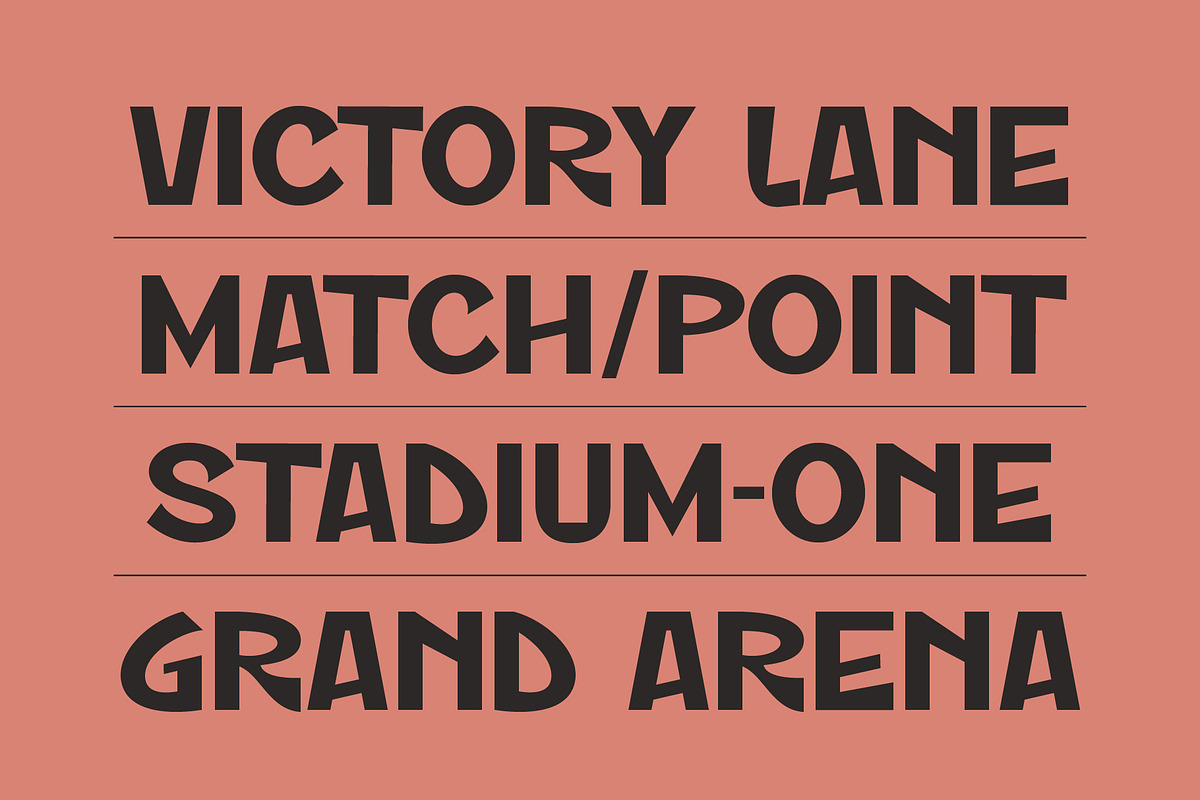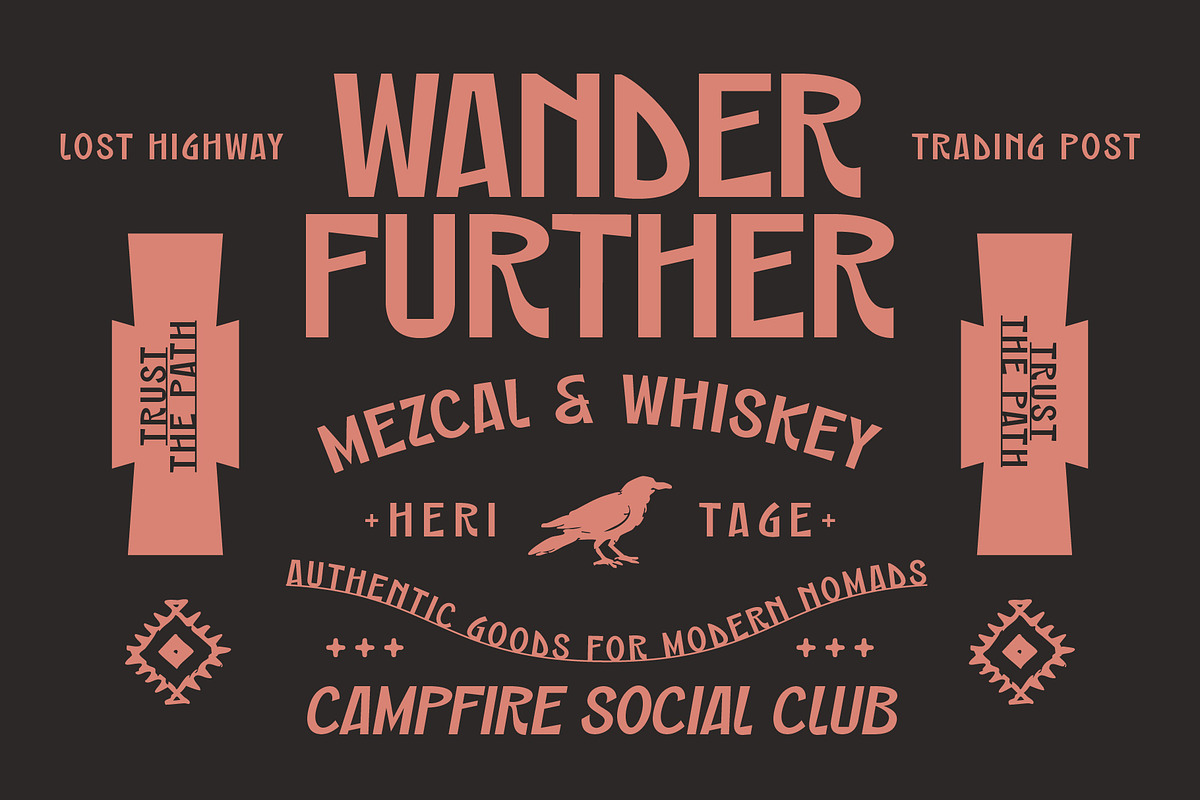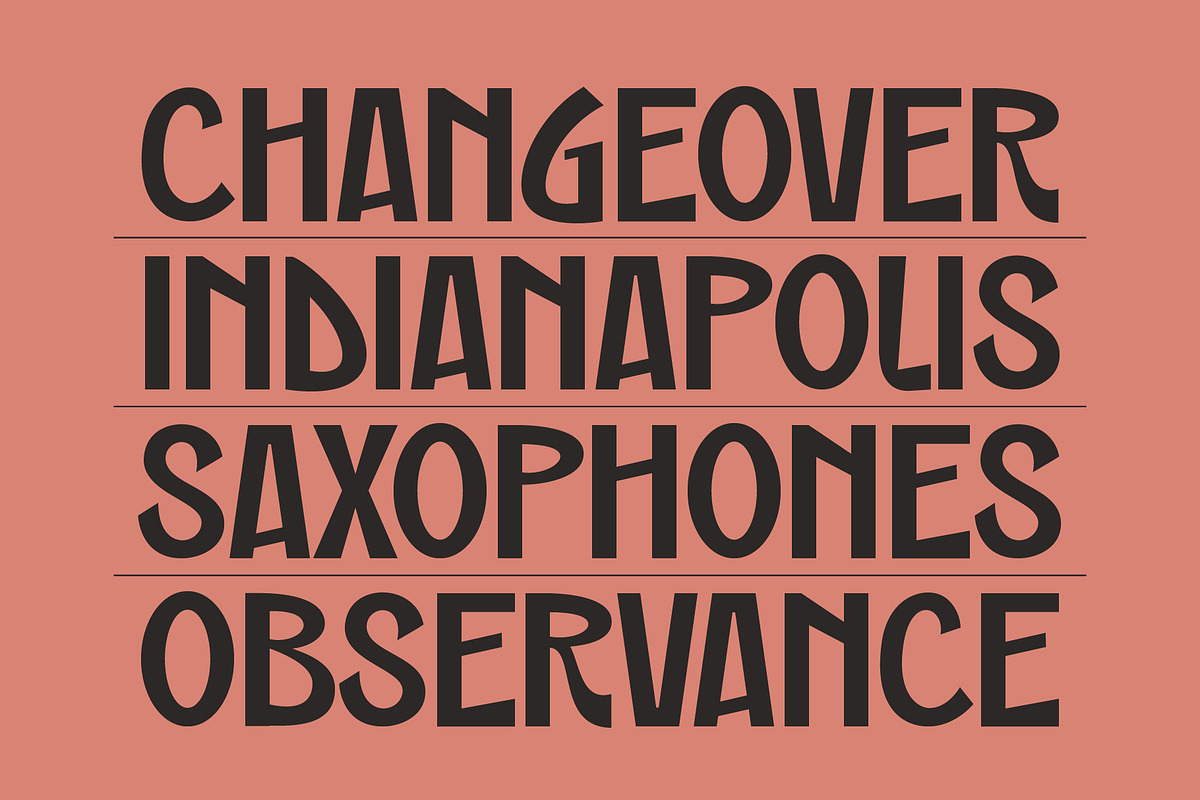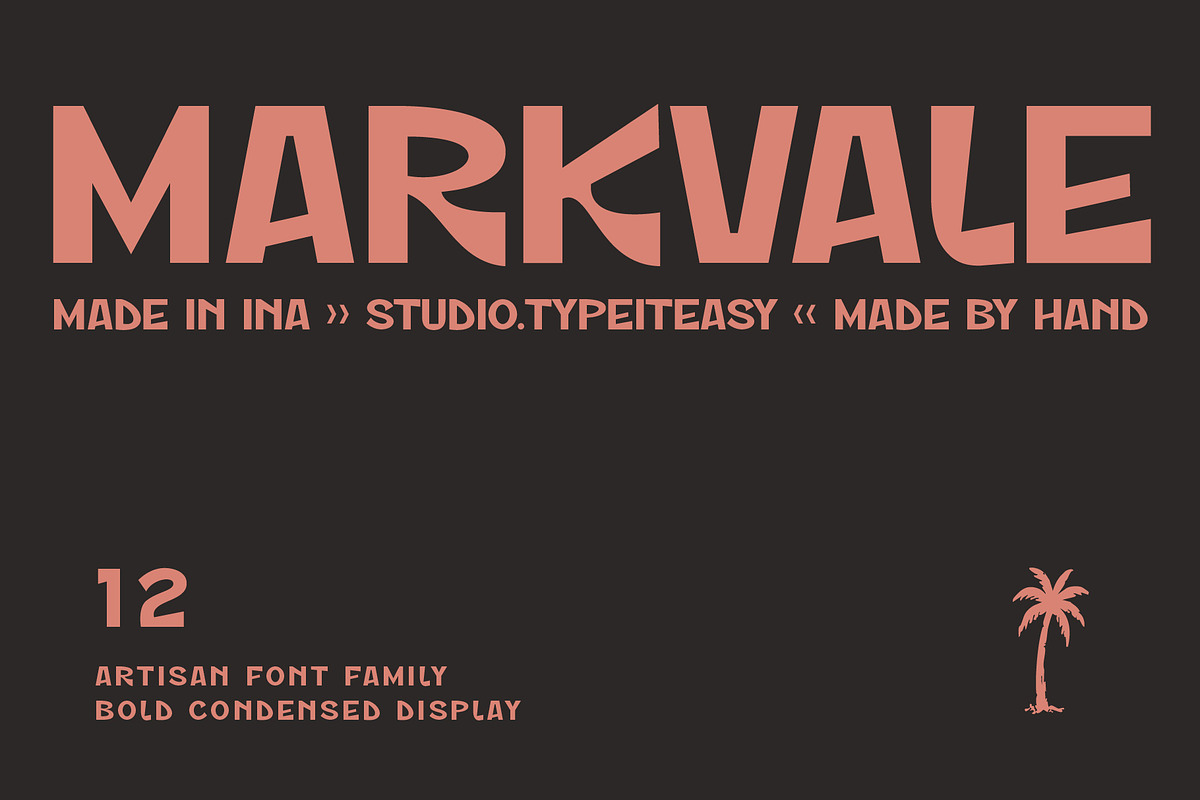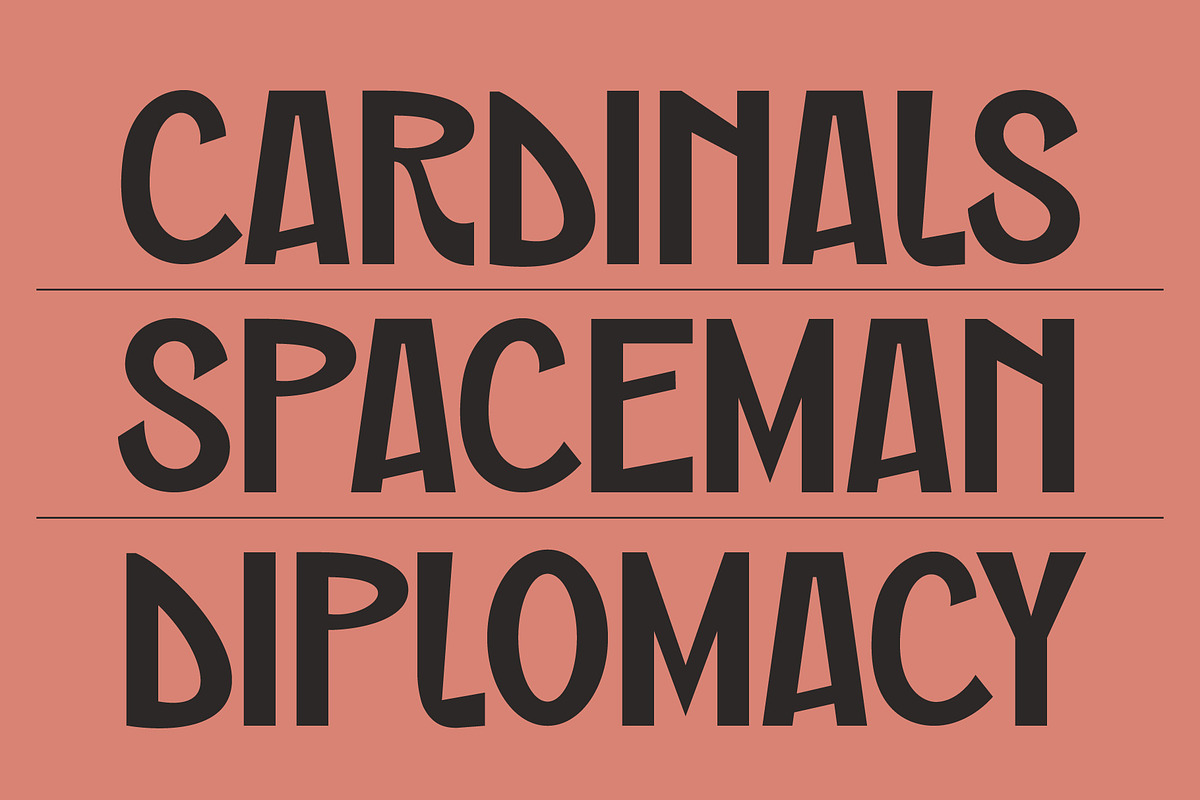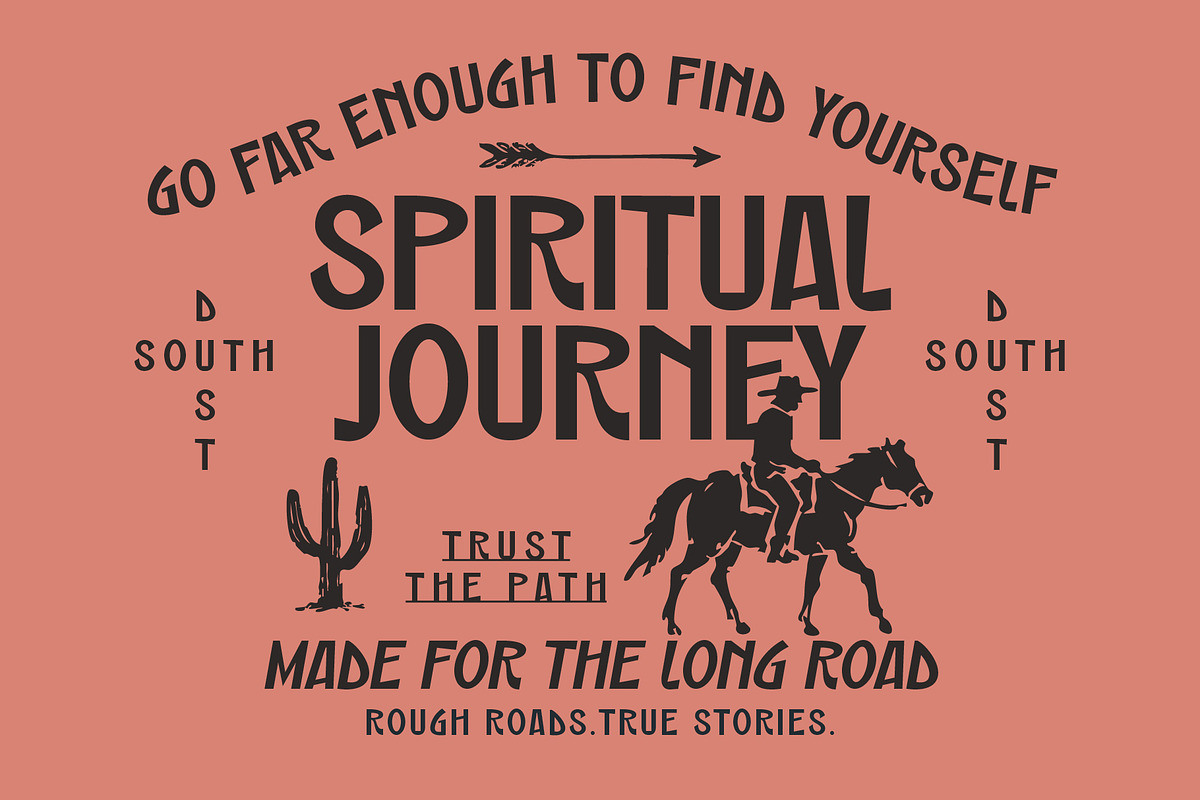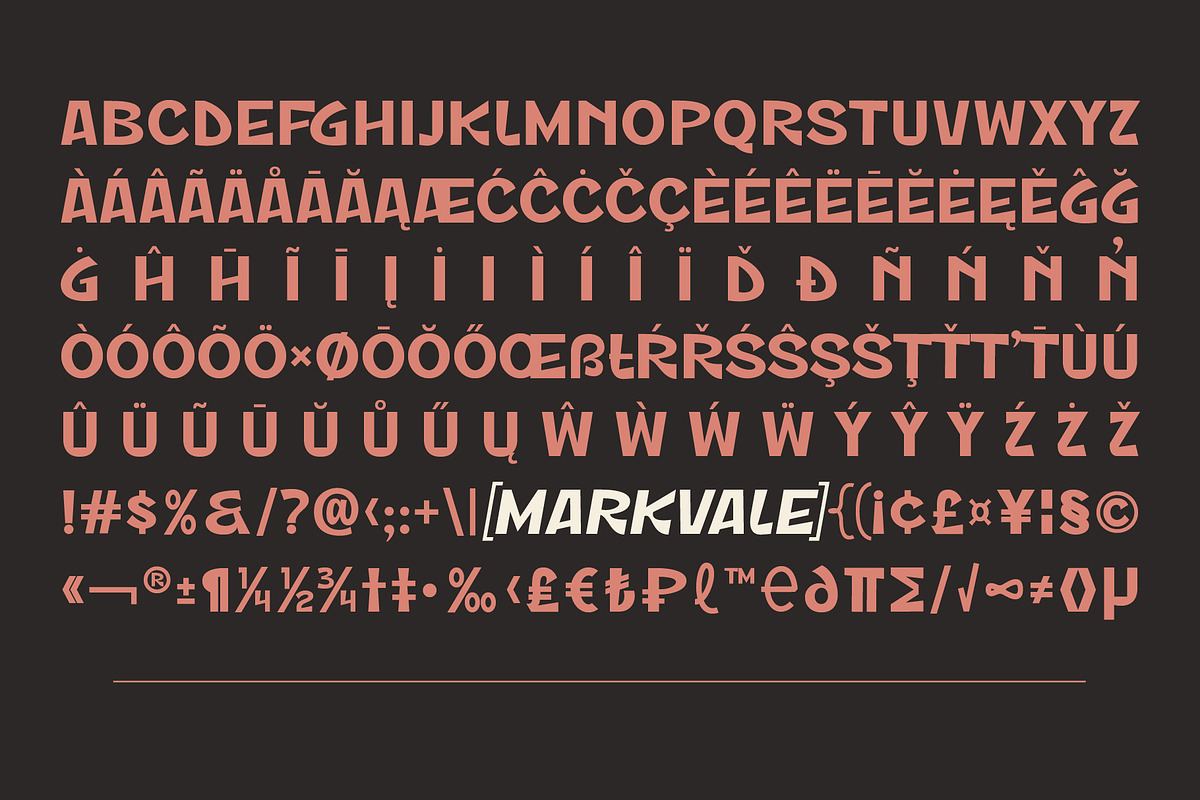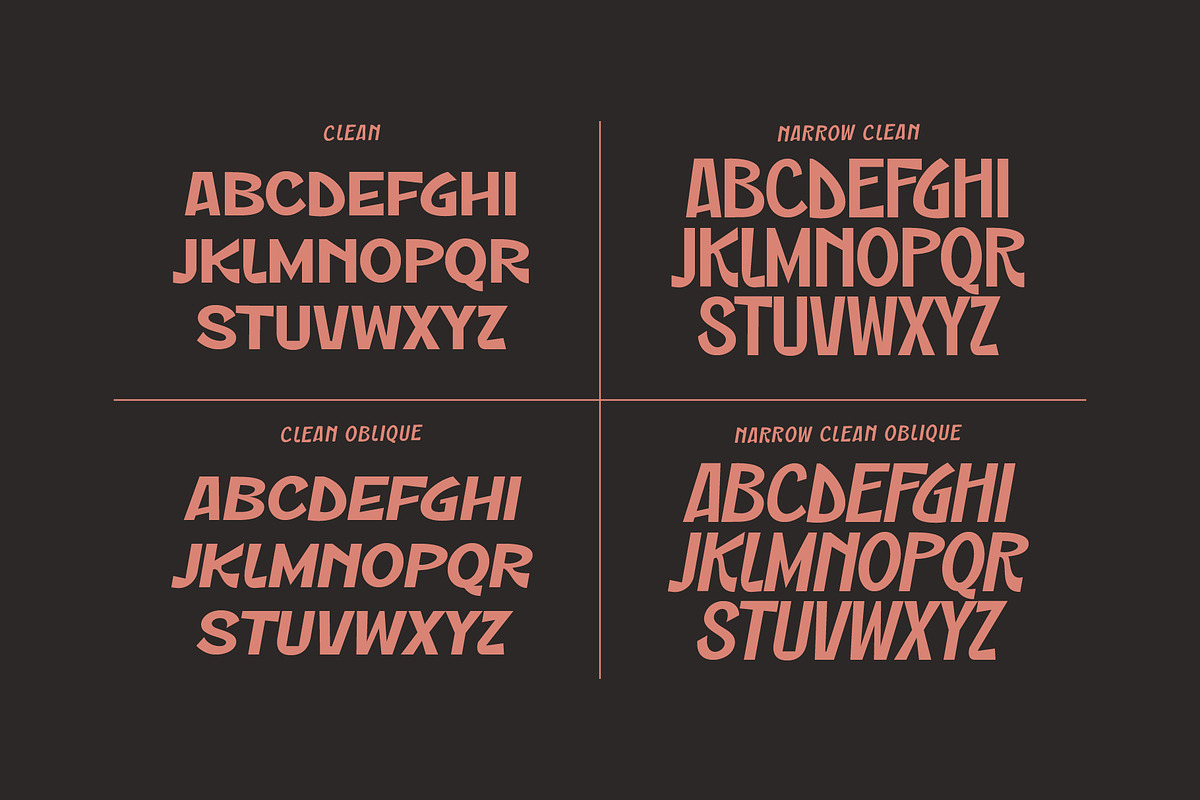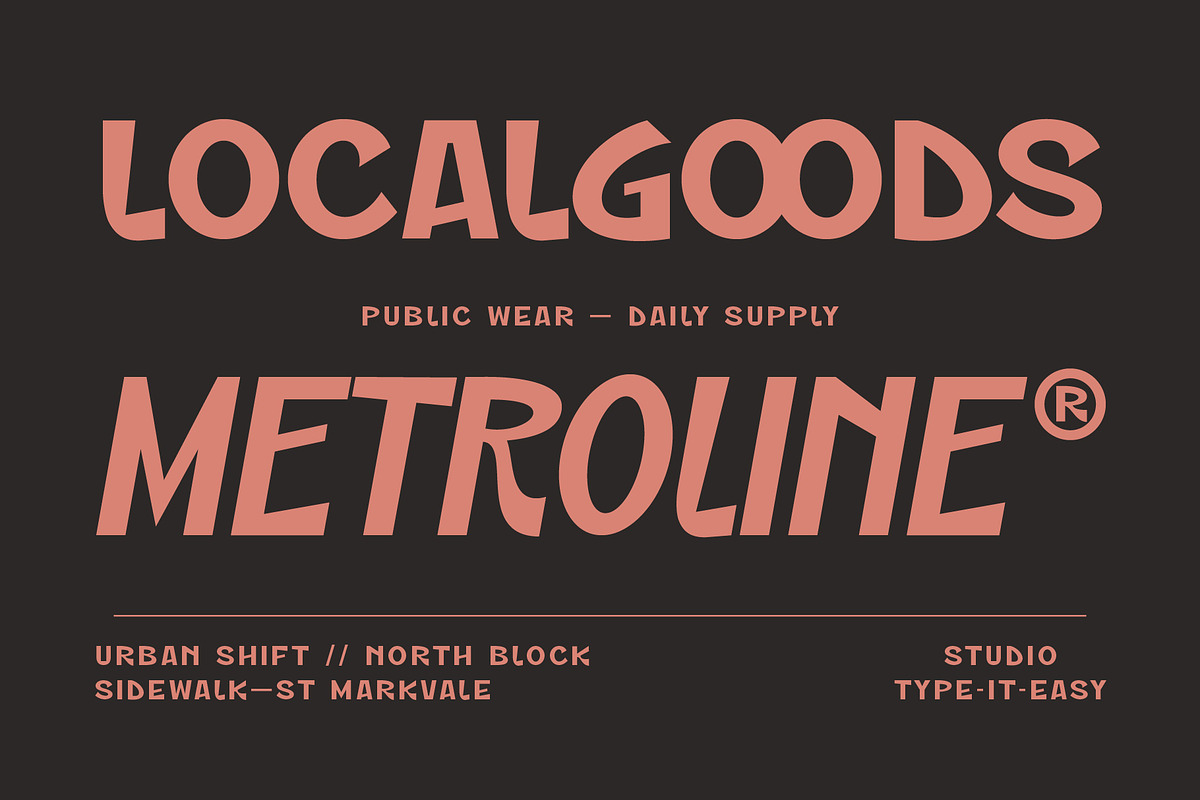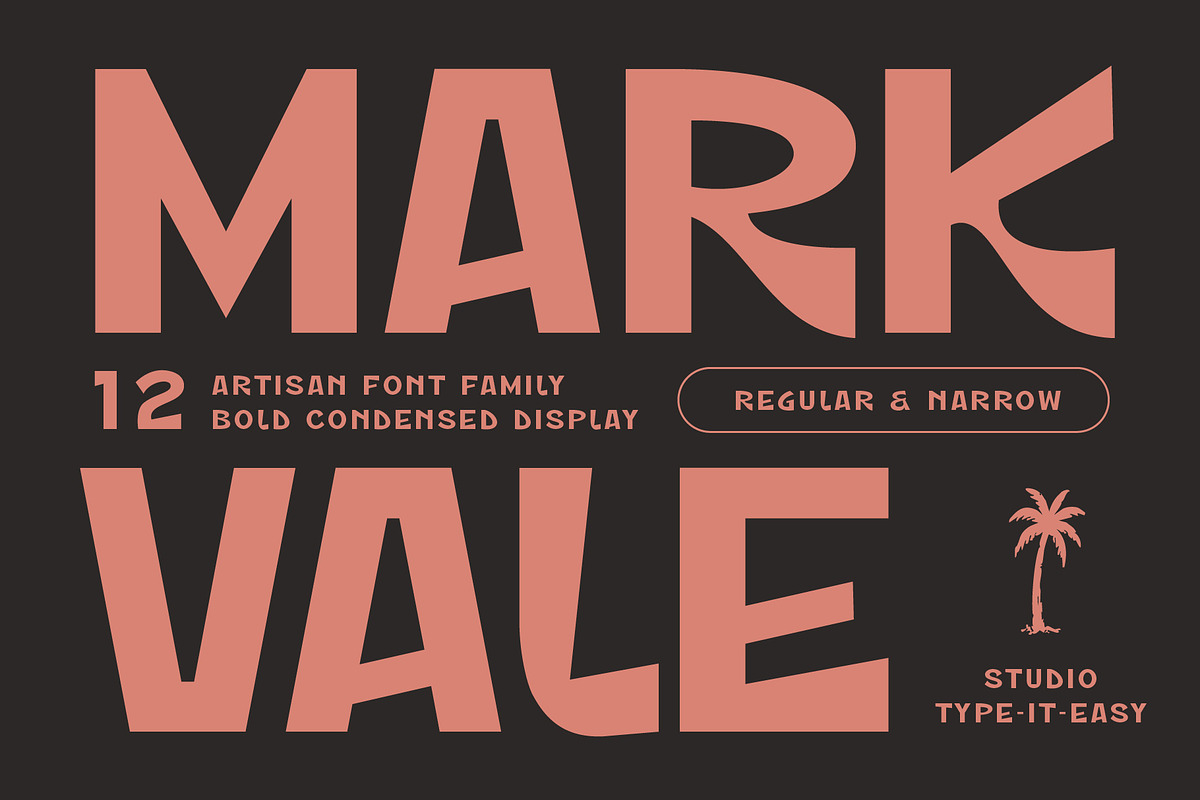
ST Markvale – Bold Display Family
ST Markvale is a bold condensed display font family crafted for designers who need strong, eye-catching typography with a modern artisan touch. Featuring 12 versatile styles including Regular, Narrow, and Oblique variations, this font is built to create powerful logos, impactful headlines, sports branding, automotive graphics, apparel designs, packaging, posters, and editorial layouts.
Inspired by vintage industrial signage, motorsport graphics, collegiate lettering, and modern streetwear aesthetics, ST Markvale combines bold geometric forms with subtle handcrafted details, making it perfect for both contemporary and retro-inspired projects.
Whether you're designing a racing team identity, a craft brewery label, an outdoor brand, or a bold merchandise collection, ST Markvale delivers maximum visual impact while maintaining excellent readability.
Sports & Athletic Branding
Automotive & Motorsport
Streetwear & Apparel
Outdoor & Adventure Brands
Craft Beer & Food Packaging
Gaming & Esports
Posters & Event Graphics
Logos & Visual Identity
Editorial Headlines
YouTube Thumbnails
12 Font Styles
Regular & Narrow Widths
Upright & Oblique Styles
Currency Symbols
Carefully Crafted Kerning